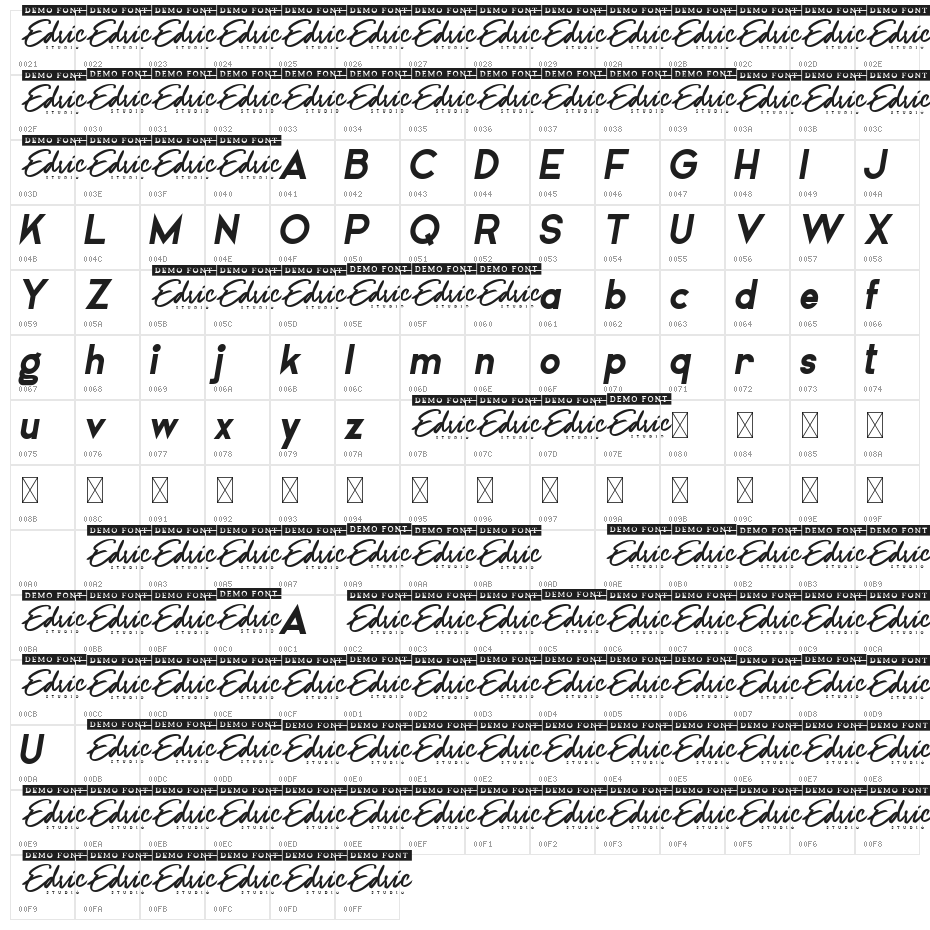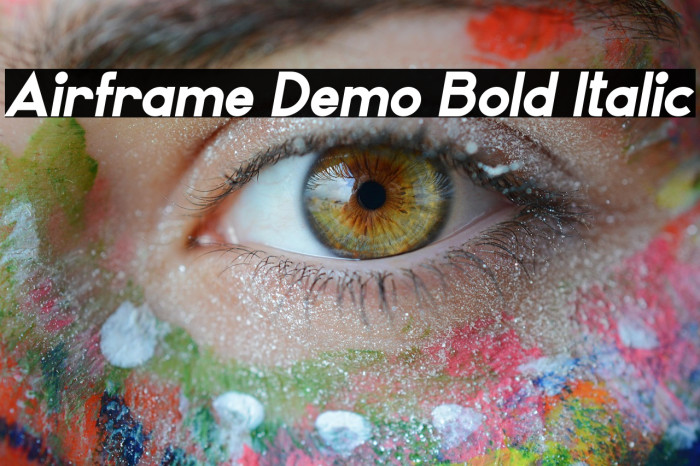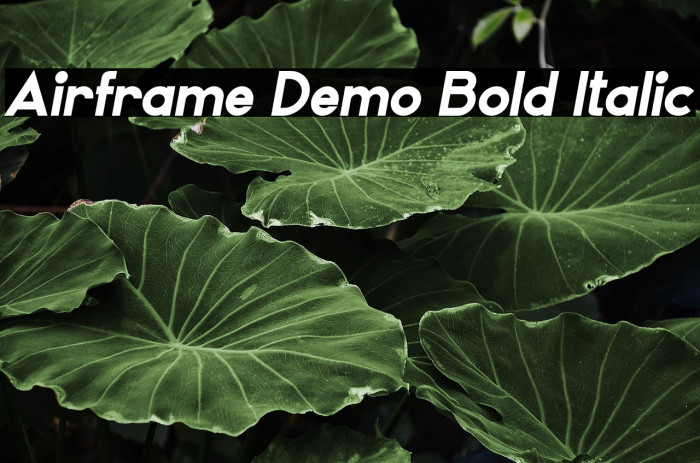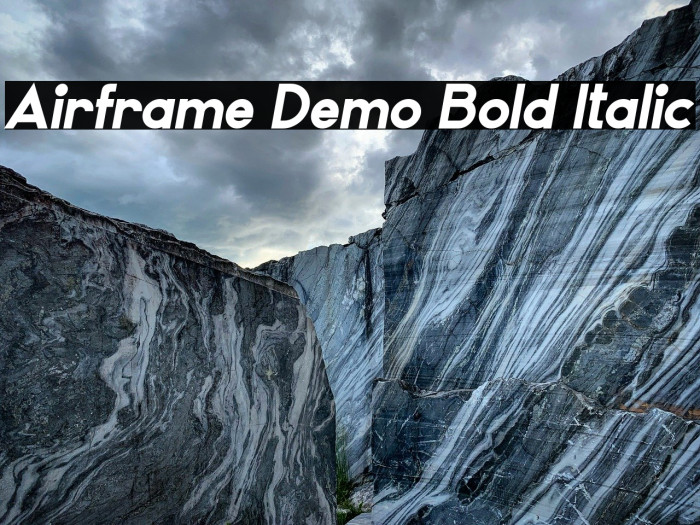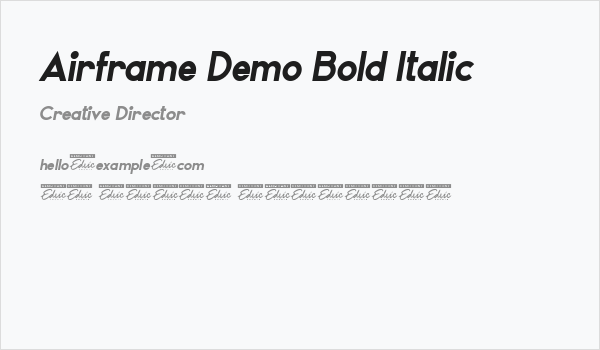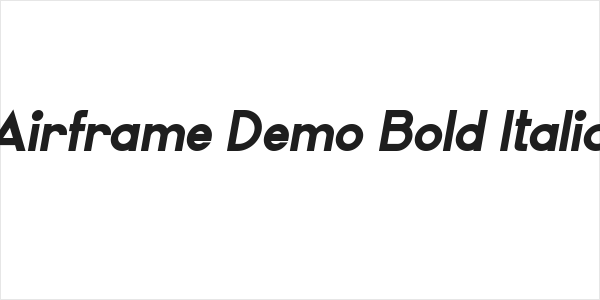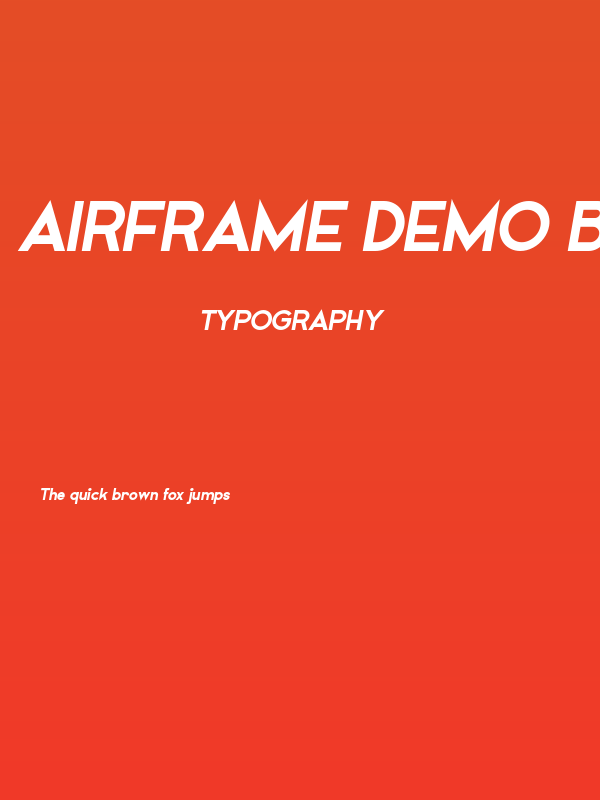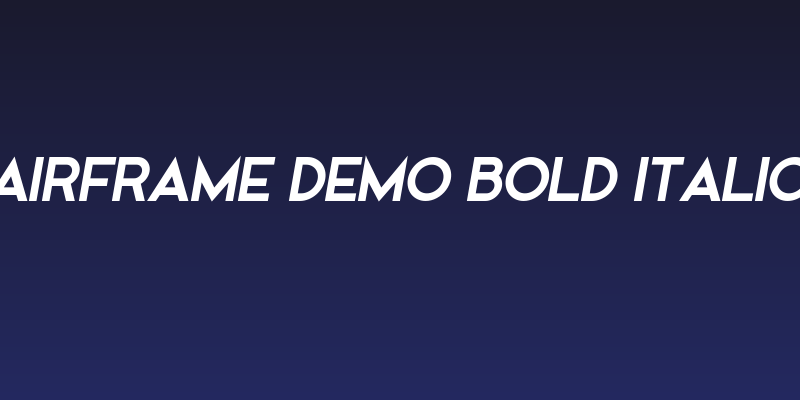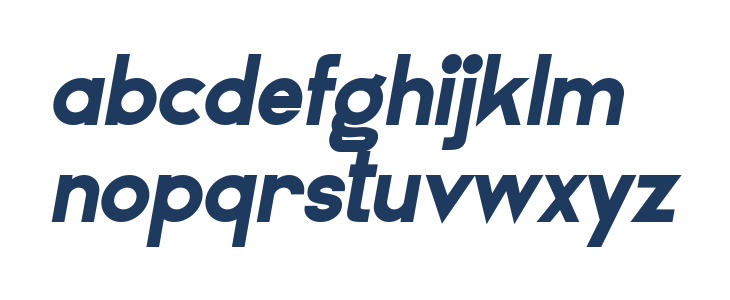
Airframe Demo Bold Italic Font
Airframe Demo Bold Italic Description
This font features a bold and italic style, characterized by its strong and dynamic appearance. The letters have a forward-leaning slant, giving a sense of motion and energy. The strokes are thick and consistent, providing a solid and impactful look. The uppercase and lowercase letters maintain a uniform style, with rounded edges that soften the overall boldness. The font is versatile, suitable for various design applications where a modern and assertive typeface is desired. Its clean lines and contemporary aesthetic make it ideal for branding, headlines, and promotional materials.